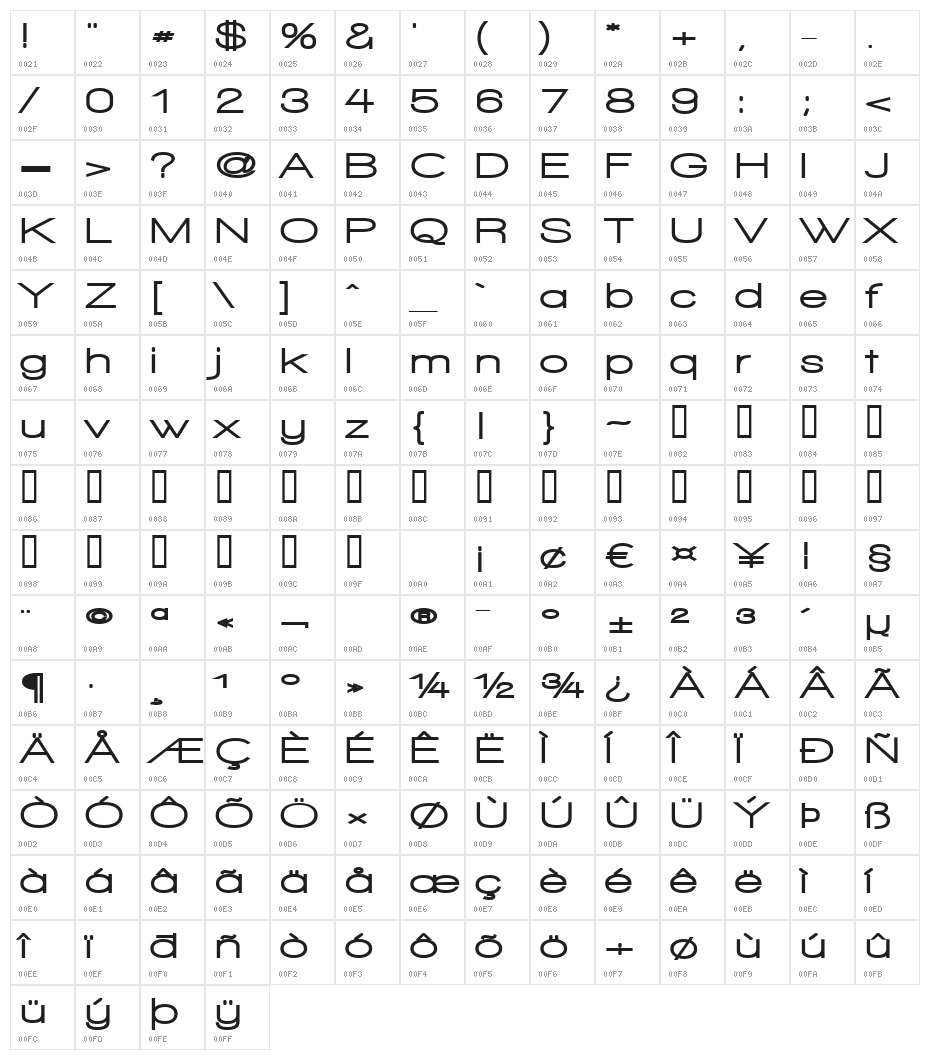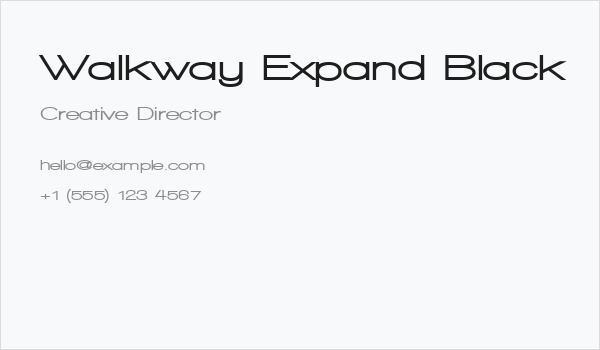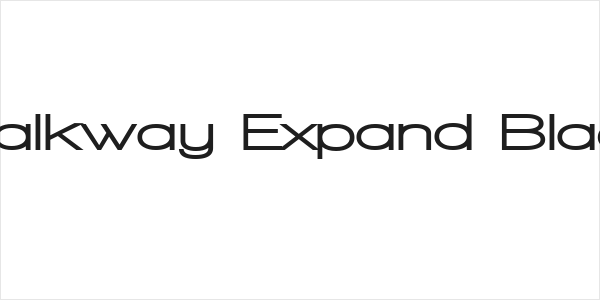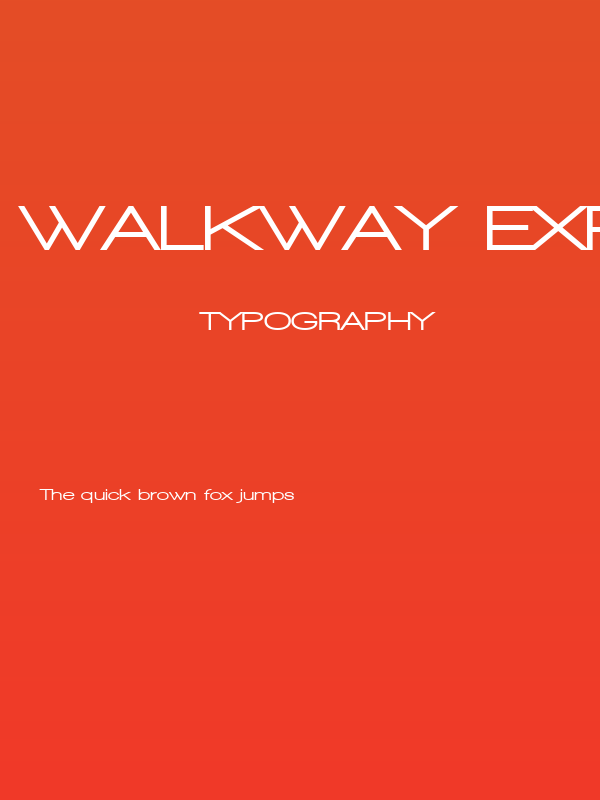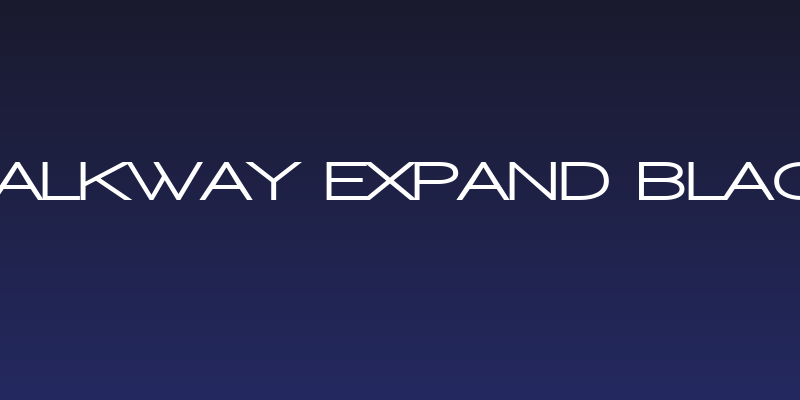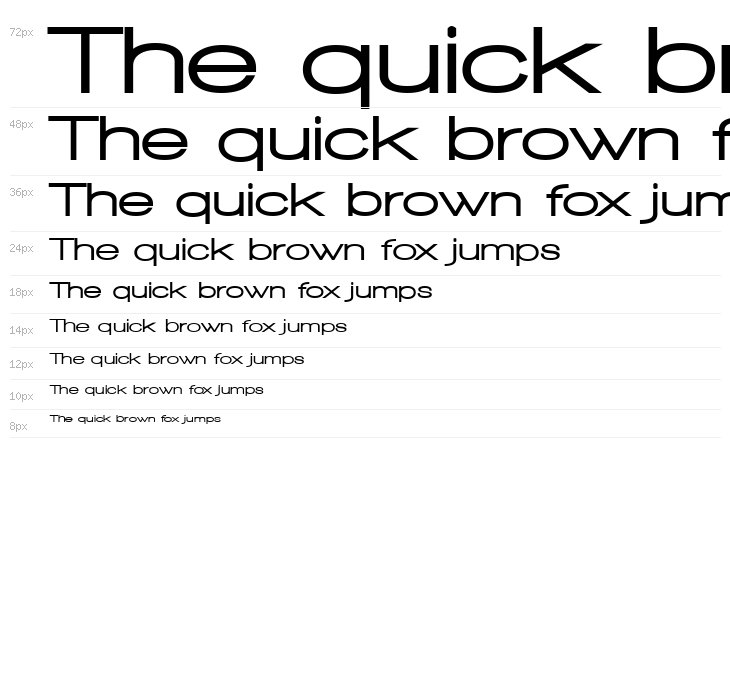
Walkway Expand Black Font
Walkway Expand Black Description
This font features a sleek and modern design with clean lines and a geometric structure. The characters are wide and evenly spaced, giving it an open and airy feel. The uppercase letters are bold and commanding, while the lowercase letters maintain a consistent style with a slightly softer appearance. The numerals are clear and easy to read, making them suitable for various applications. Special characters are designed with the same attention to detail, ensuring a cohesive look across all glyphs. This font's simplicity and elegance make it versatile for both digital and print media.
Use CaseHeadlines, Logos, Advertising
Proposed ProjectsIdeal for branding, advertising, web design, and editorial layouts.